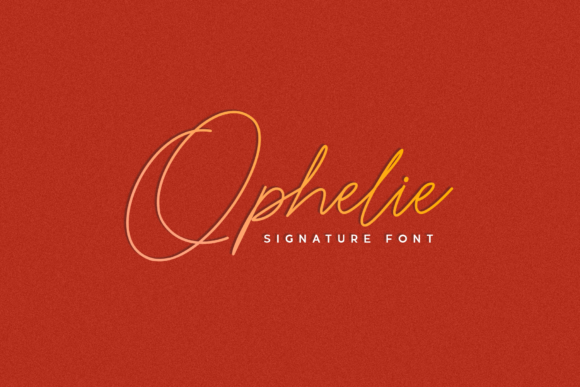
Unleash your creativity with the enchanting Ophelie font, crafted with a touch of romance that will captivate your designs. Its gracefully flowing letters dance across the page, leaving a trail of undeniable charm. Embrace the allure of a font designed to evoke emotions, where every word becomes a captivating tale.
Indulge in a world of endless possibilities with Ophelie. Its romantic essence lends itself effortlessly to wedding invitations, love letters, and any creation yearning for a touch of tenderness. Let your words take flight with the fluid strokes of Ophelie, captivating hearts with its undeniable allure.
Ophelie is not merely a font; it's an invitation to explore the realms of imagination, where dreams take shape and stories come to life. Its versatility empowers you to weave enchanting narratives, from whimsical quotes to heartwarming anecdotes. Dive into the world of Ophelie and discover the power of a font that speaks to the soul.